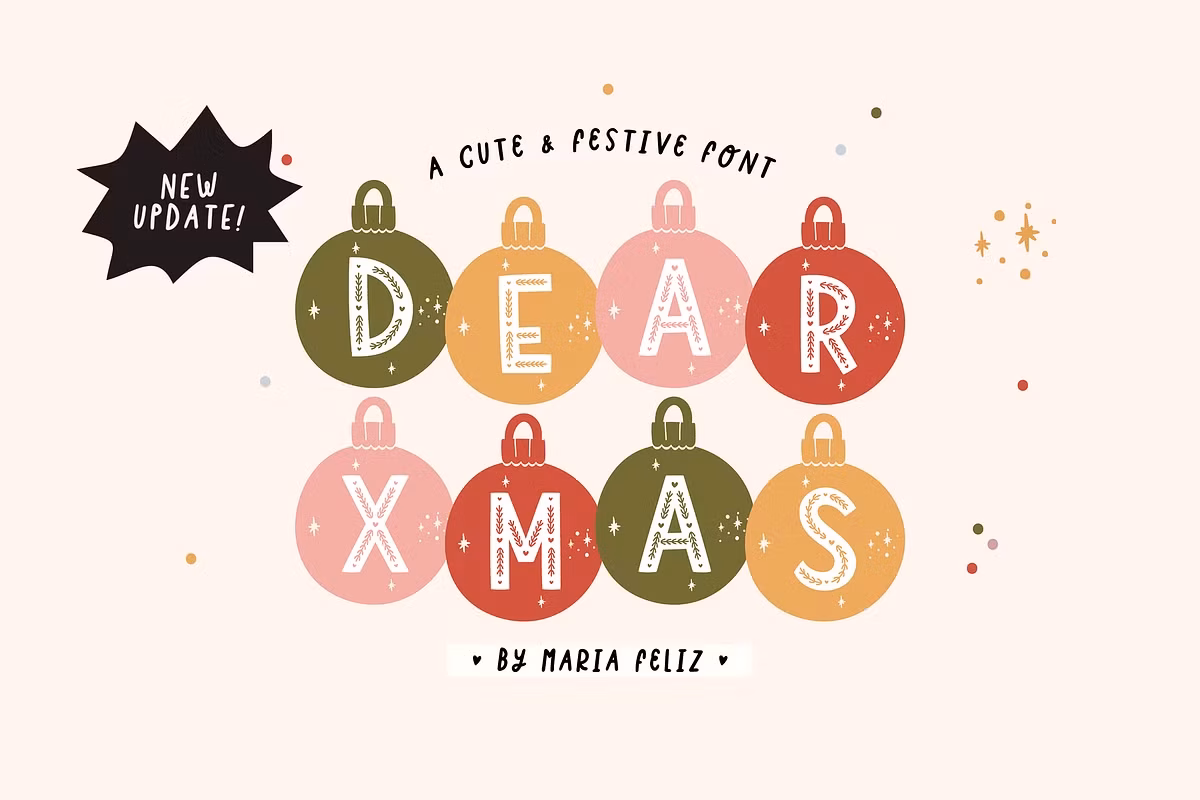
DEAR XMAS Font Free Download is a festive and joyful typeface crafted specifically for the holiday season. With its playful curves and cheerful design, this font is perfect for Christmas cards, holiday invitations, festive packaging, seasonal branding, and winter-themed social media graphics.
Brimming with holiday spirit, DEAR XMAS adds a magical touch to any design. Its decorative style captures the warmth and excitement of Christmas, making it an ideal choice for both personal and commercial holiday projects.